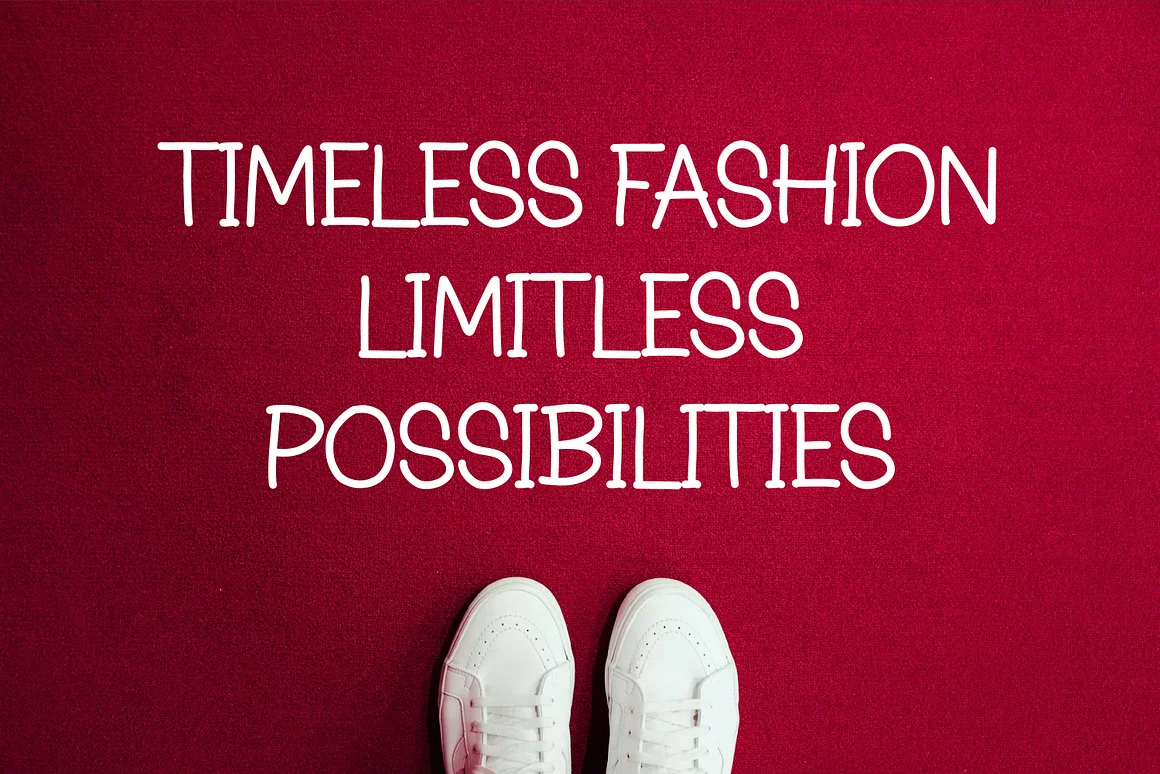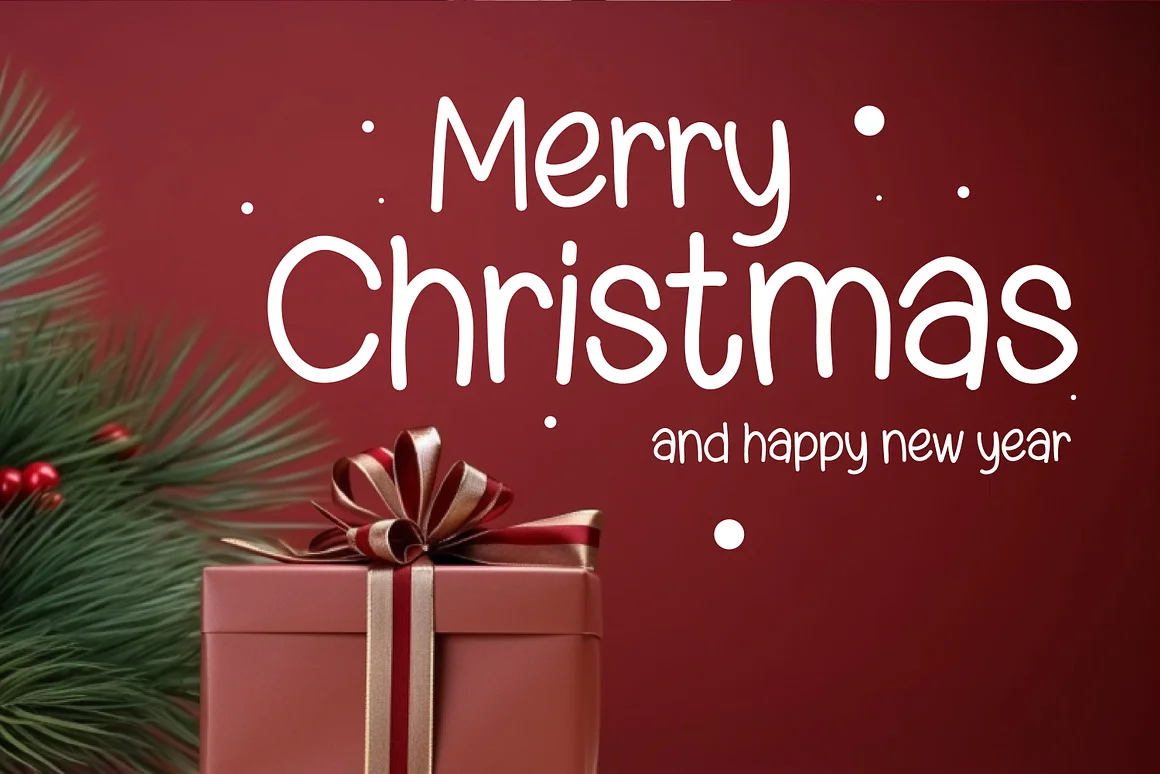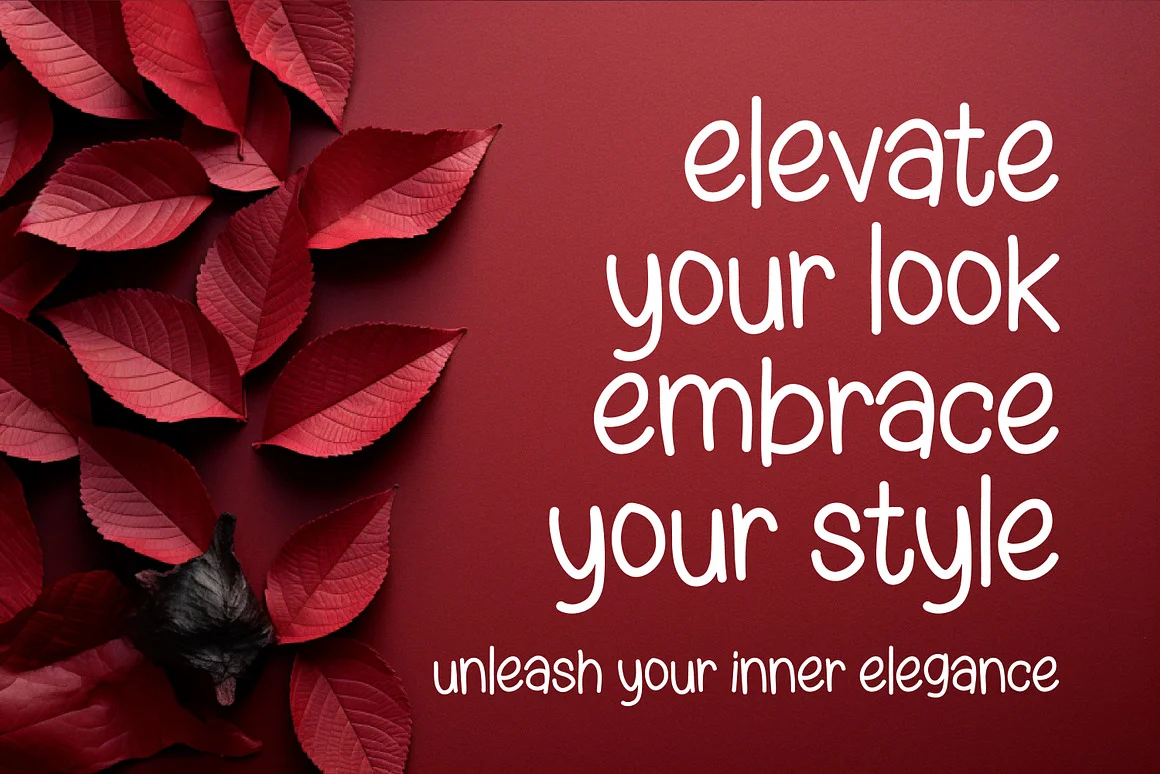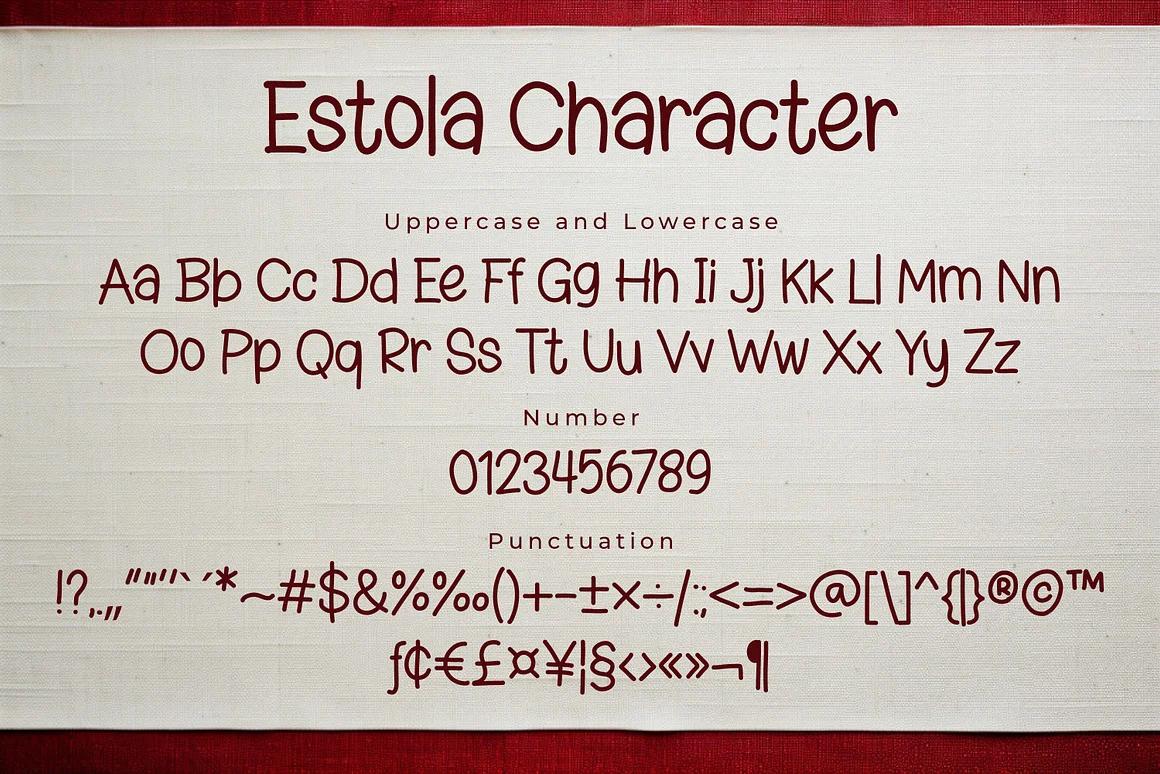
Estola Handwritten Font
A beautifully elegant handwritten font that captures the essence of personal touch and creativity. With its flowing, natural strokes, Estola adds a charming, human feel to any project, making it perfect for logos, wedding invitations, social media posts, or branding. This font’s delicate and refined style brings sophistication and warmth, making your designs feel intimate and memorable.